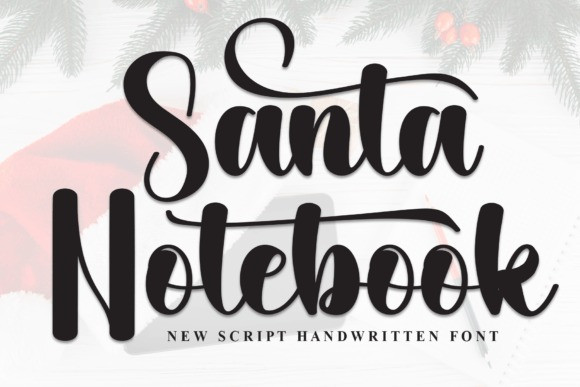
Santa Notebook Font
Santa Notebook Font is a bold handwritten font that looks like it was written with a marker. The letters are thick and smooth, giving it a fun and casual style, perfect for creating a friendly, personal touch in your designs.